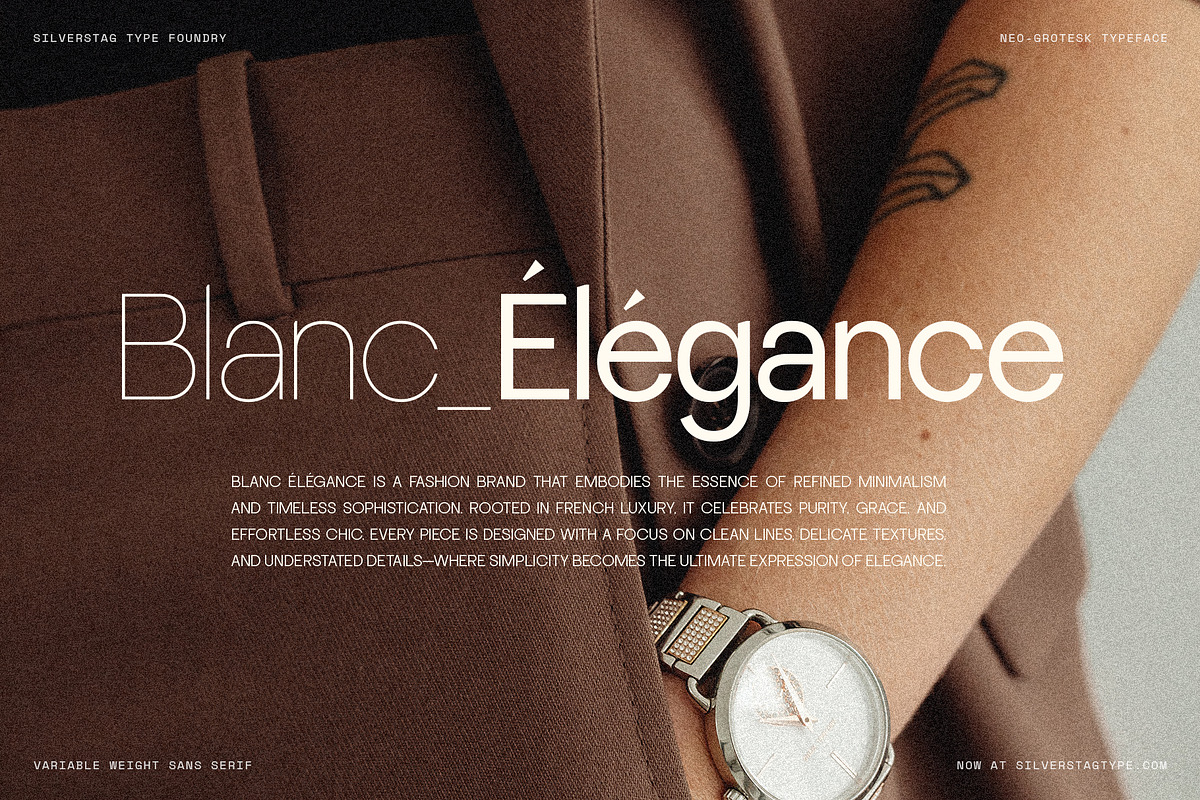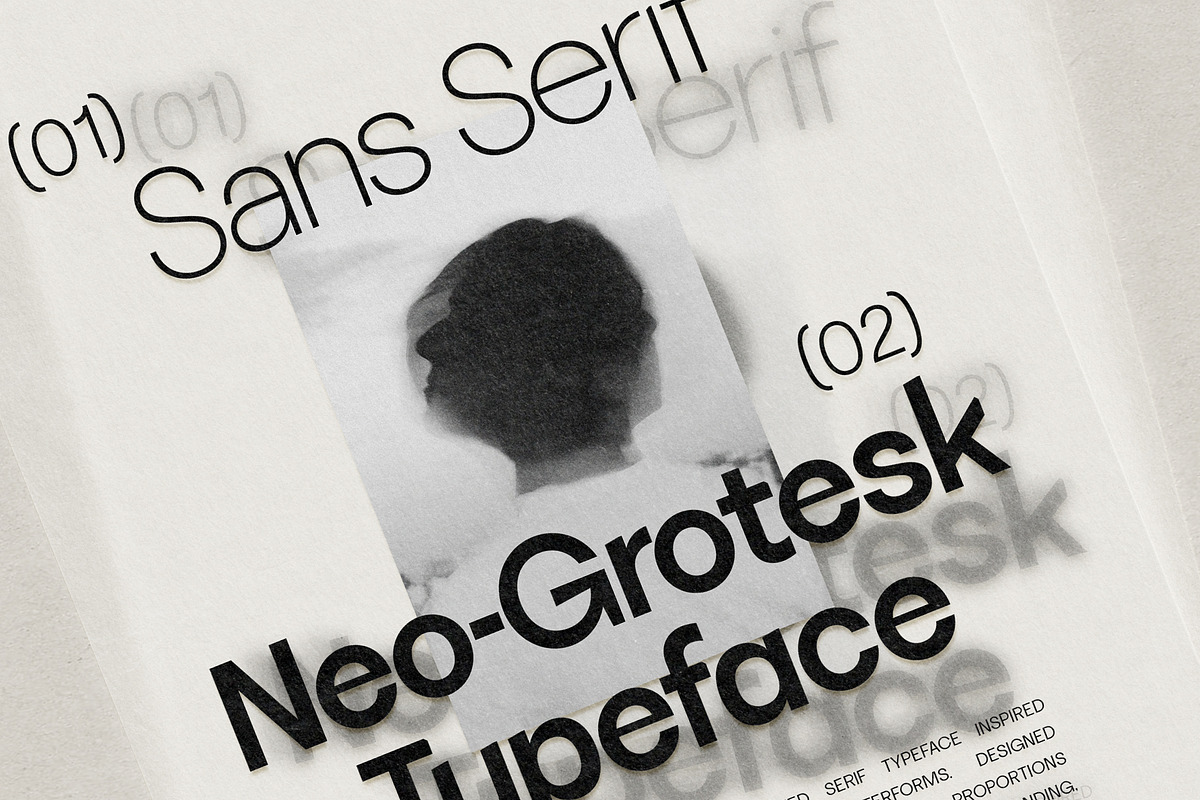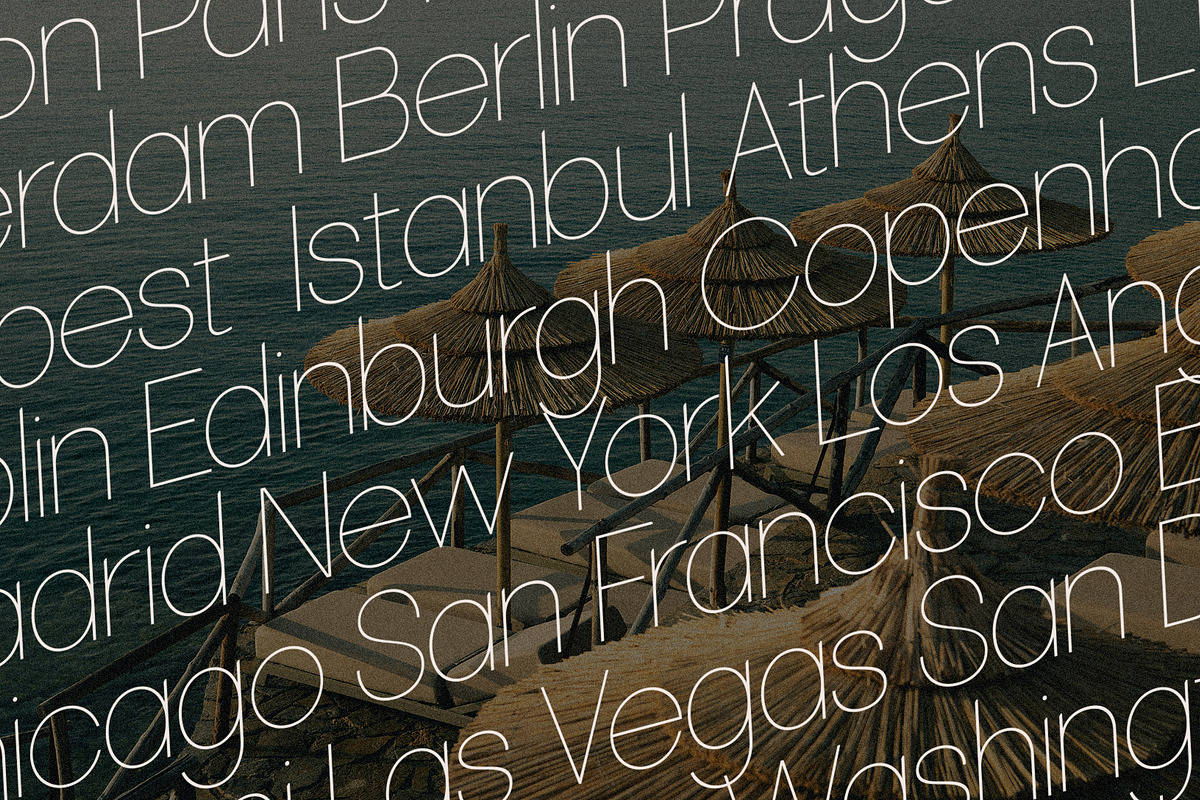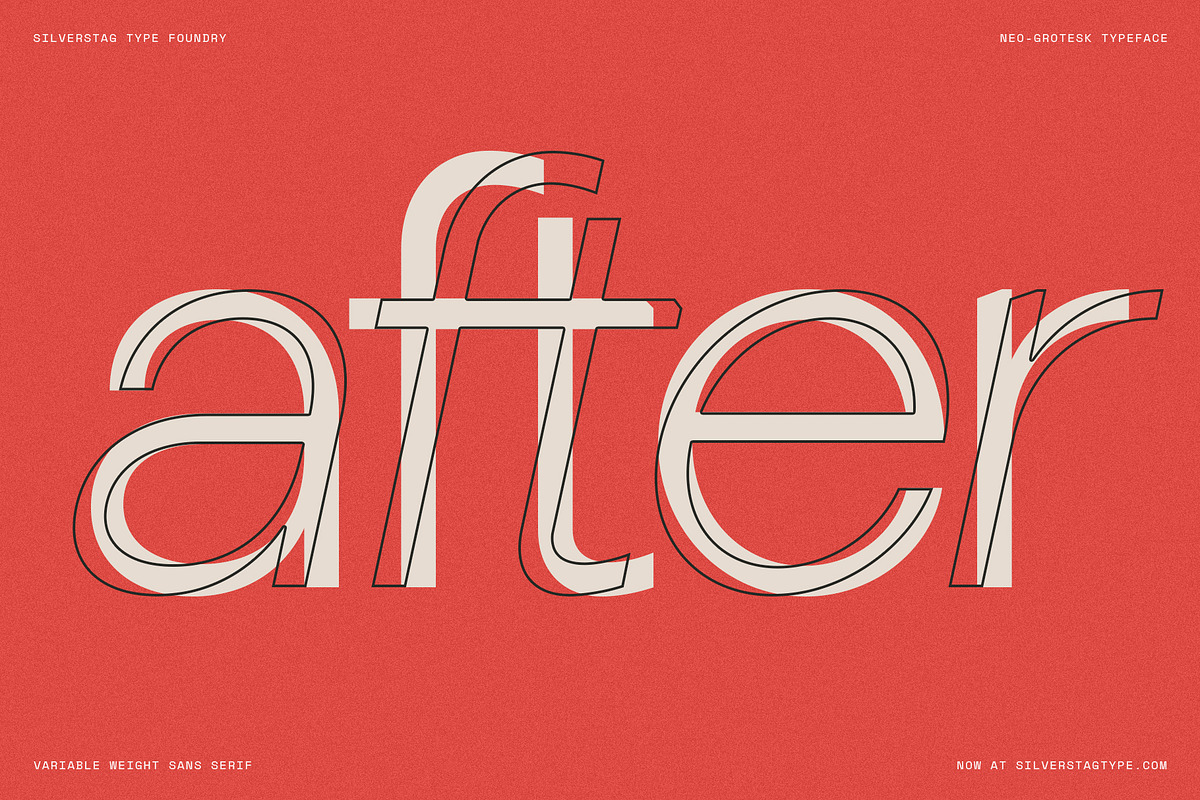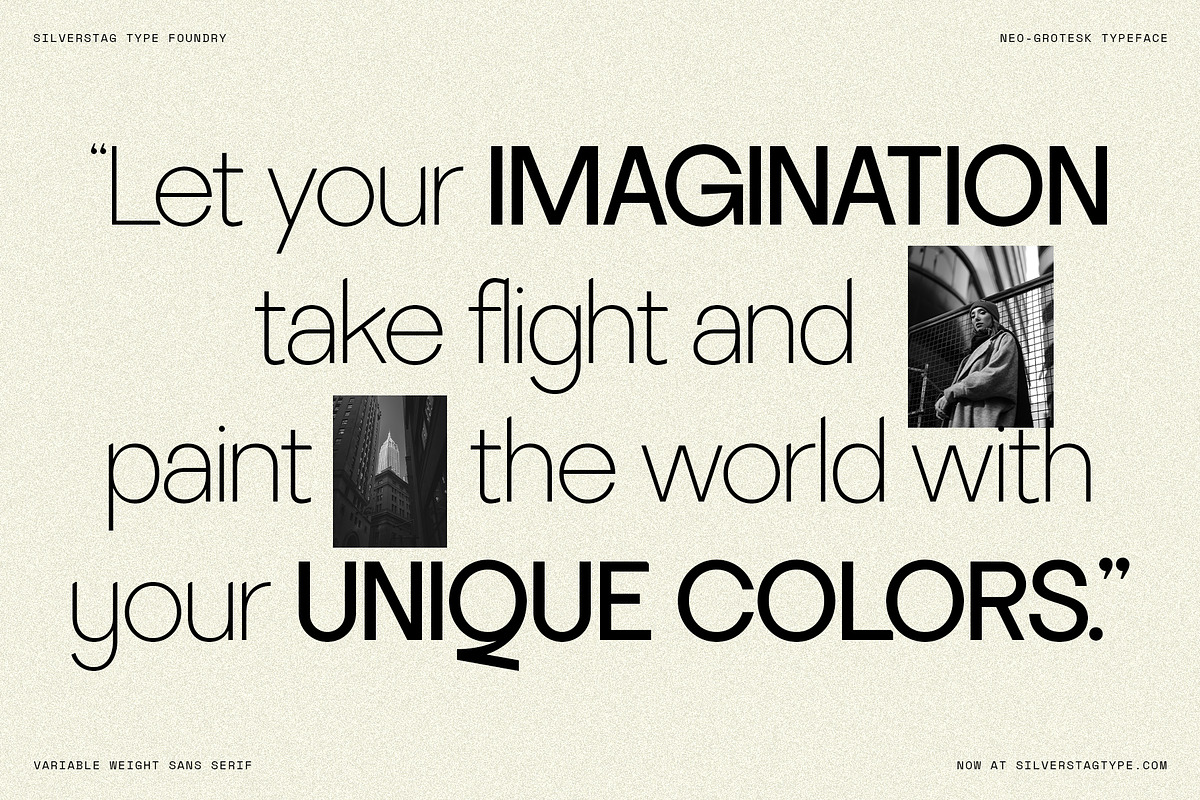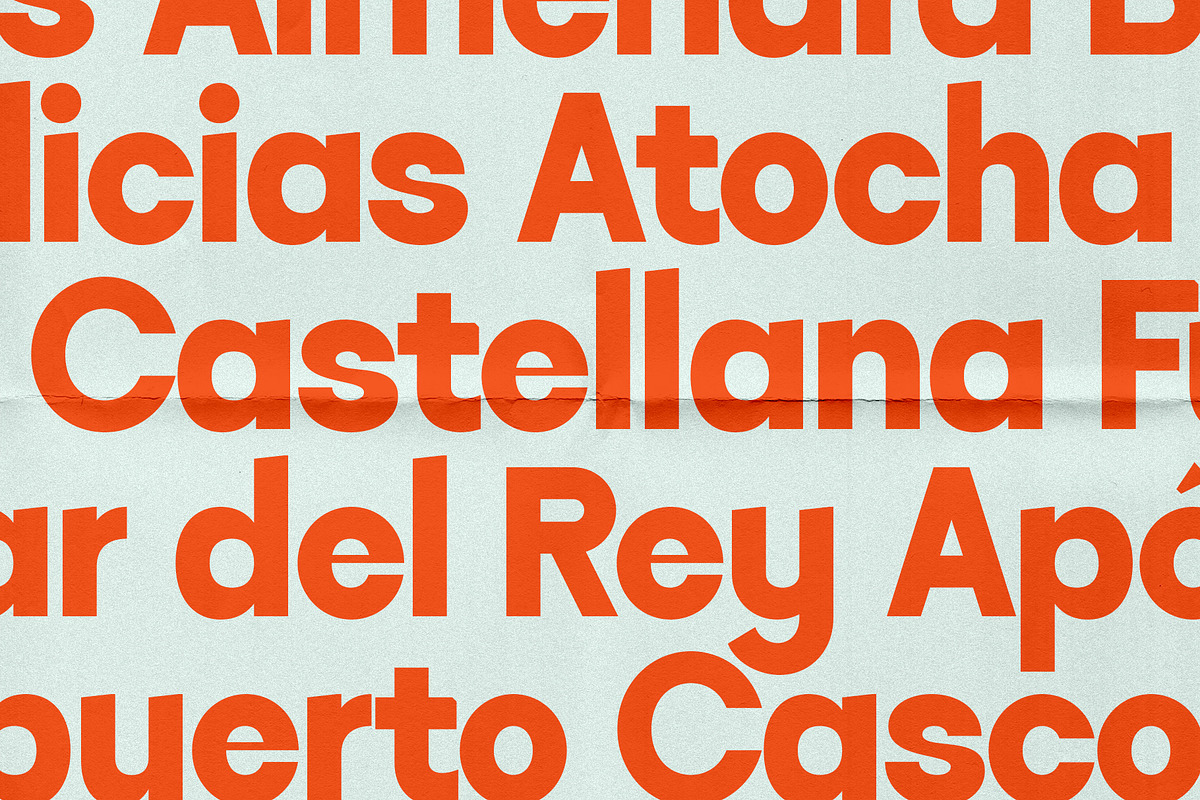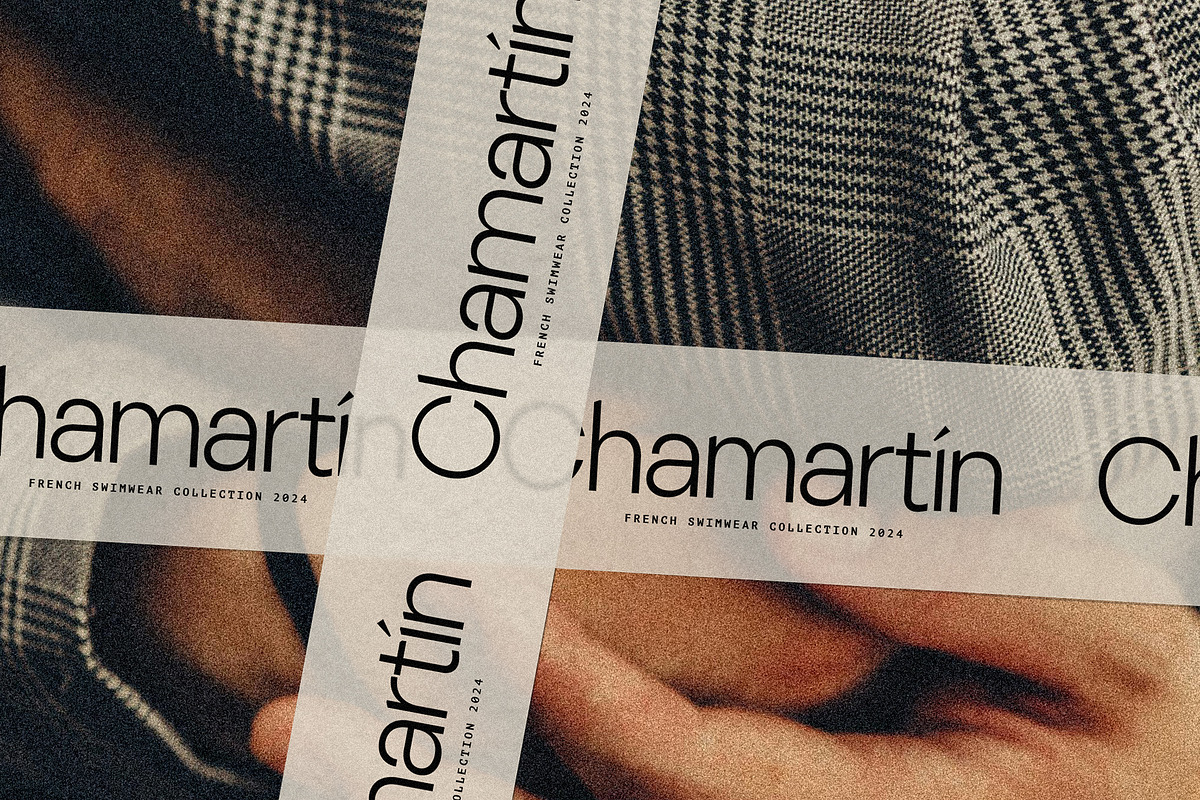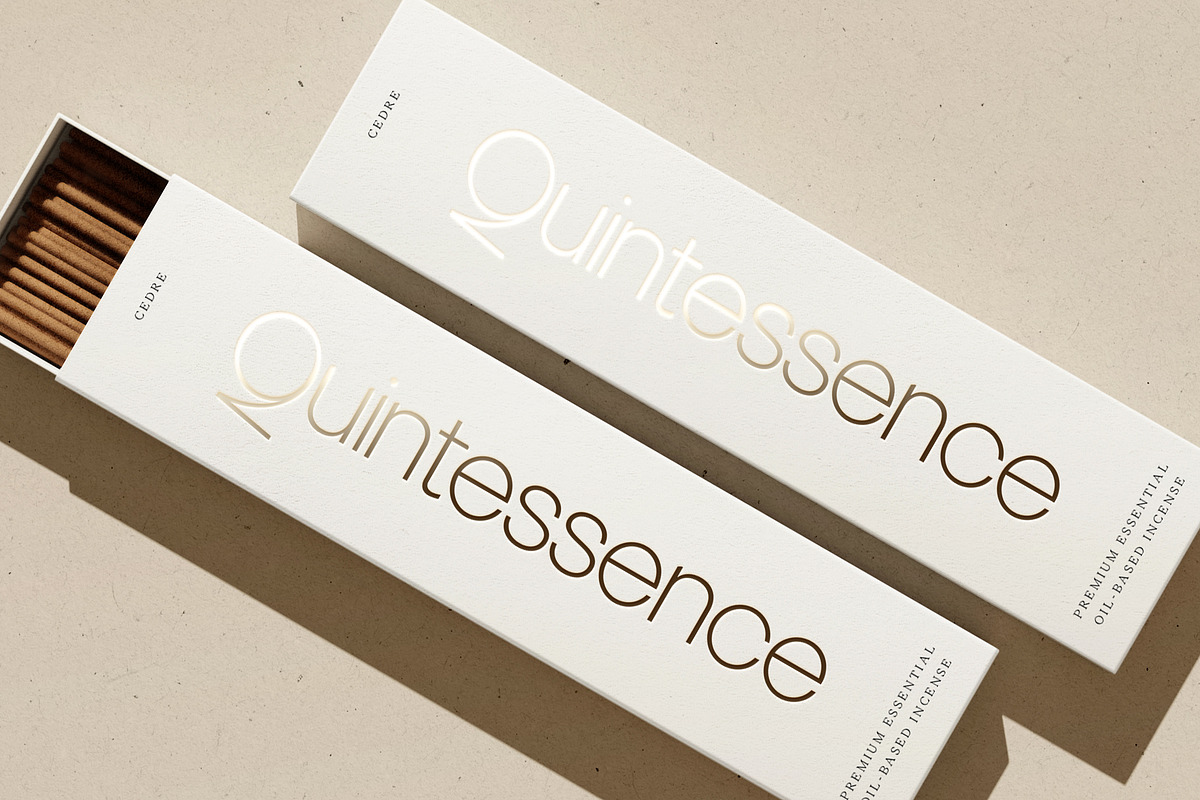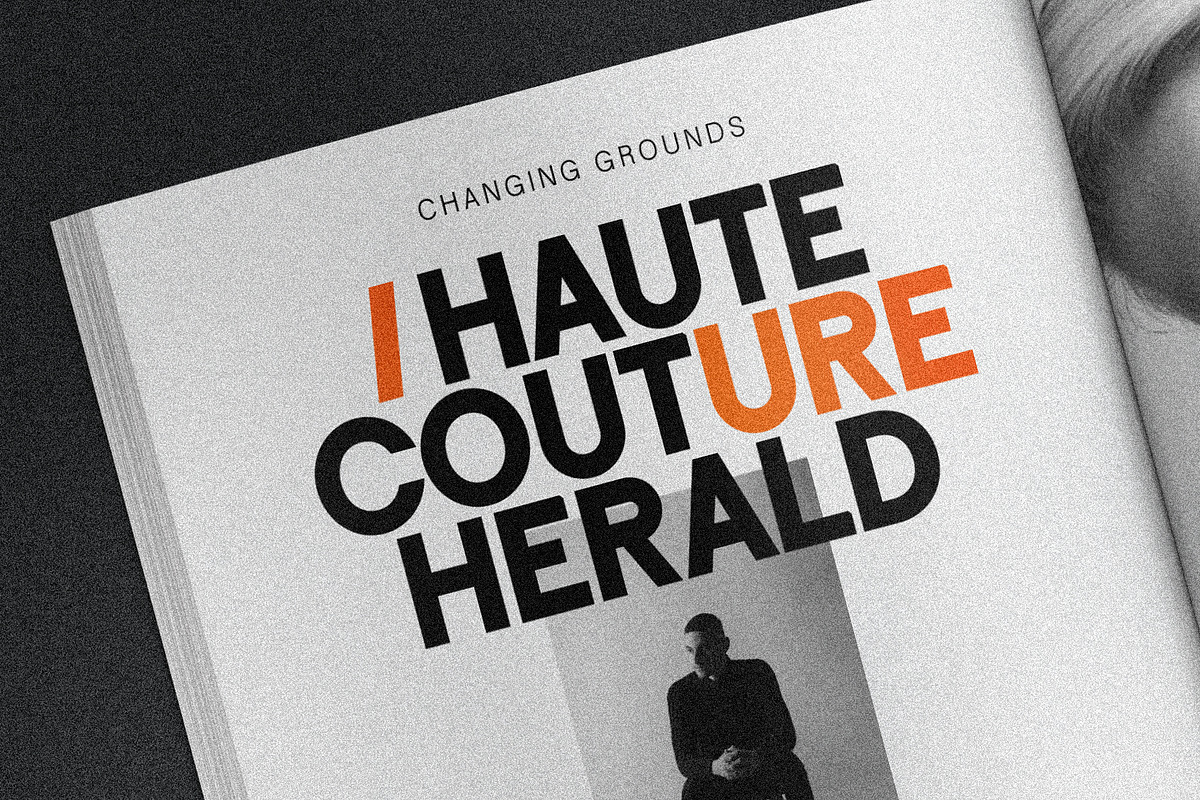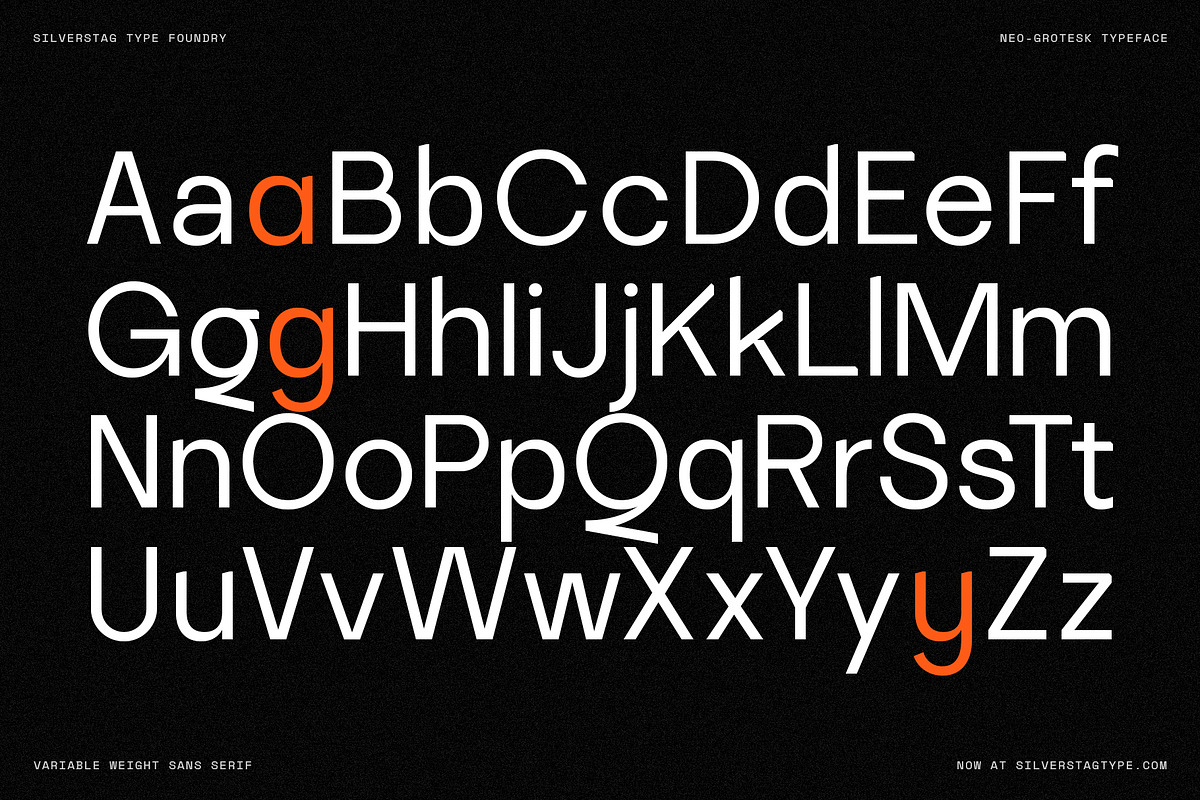
SLTF La Villa - Neo-Grotesk Typeface
Meet SLTF La Villa – a sleek, modern neo-grotesk sans serif font that delivers clarity, versatility, and character in equal measure. With clean lines, smooth geometry, and subtle humanist details, this typeface is crafted to support everything from bold branding to elegant editorial layouts.
La Villa includes 18 distinct styles – nine uprights and nine matching italics – ranging from Light to Black, plus a variable font for even more flexibility. Whether you’re designing digital interfaces, packaging, magazines, or minimalist portfolios, this family adapts seamlessly across weights and use cases.
Inspired by the balance of modernist Swiss typography and urban European style, SLTF La Villa brings effortless sophistication to contemporary design. It’s equipped with a full character set, extended Latin language support (over 90 languages), and fine-tuned spacing for perfect legibility at any size.
Every detail was designed with purpose – from its legible lowercase forms to the sharp contrast of its heavier weights. Use it for branding, signage, user interfaces, posters, or anywhere clarity and style matter.